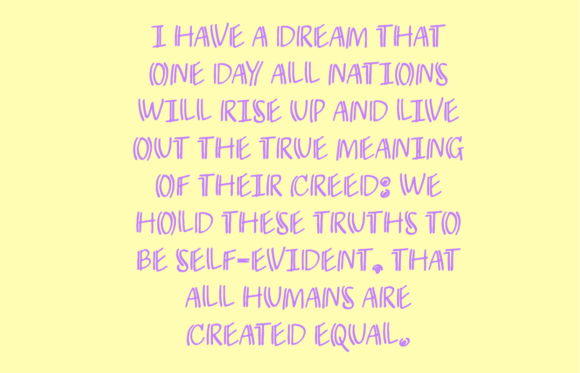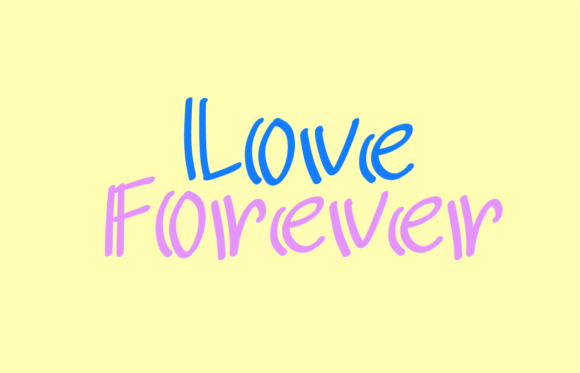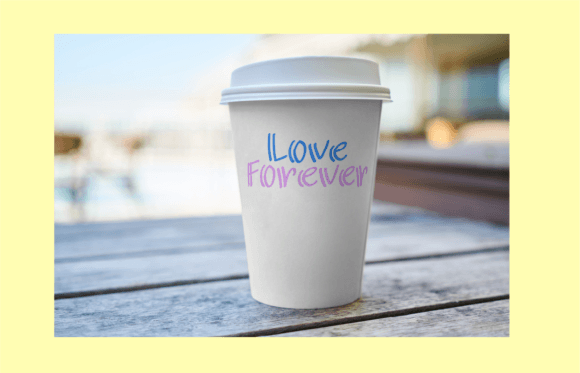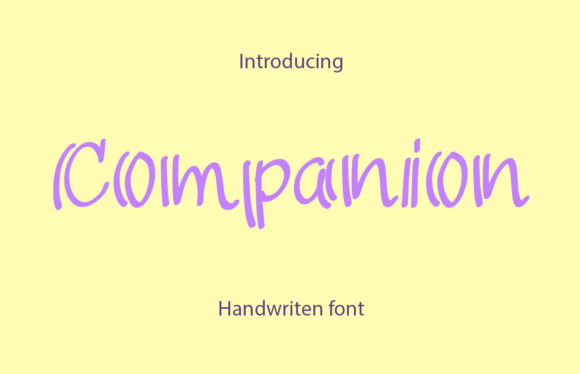
Introducing Companion Font: The Ultimate Handwritten Font for Your Creative Projects
Are you tired of using the same old fonts for your designs? Do you want to add a touch of elegance and sophistication to your projects? Look no further than Companion Font, a stunning handwritten font that’s sure to become your new favorite. With its perfect blend of classy calligraphic influences and modern freshness, Companion Font is the perfect choice for designers and crafters looking to take their work to the next level.
The Story Behind Companion Font
Companion Font is more than just a font – it’s a work of art. Masterfully designed to evoke a sense of luxury and refinement, this exquisite handwritten font is perfect for a wide range of creative projects, from wedding invitations and branding materials to social media graphics and digital art. With its flowing lines and delicate curves, Companion Font exudes a sense of sophistication and poise that’s sure to impress.
What Makes Companion Font So Special?
So, what sets Companion Font apart from other fonts on the market? Here are just a few of its standout features:
- Classy Calligraphic Influences: Companion Font boasts beautiful calligraphic influences that give it a sense of elegance and refinement.
- Contemporary and Fresh: Despite its classic influences, Companion Font feels modern and fresh, making it perfect for designers who want to create something new and exciting.
- Handwritten with Love: Companion Font is a true handwritten font, crafted with love and care to ensure that every letter and curve is perfect.
- Versatile: Companion Font is incredibly versatile, making it suitable for a wide range of creative projects, from digital art to print materials.
How to Use Companion Font in Your Projects
Companion Font is incredibly easy to use, even for designers who are new to working with handwritten fonts. Here are a few tips for incorporating Companion Font into your projects:
- Pair it with Other Fonts: Companion Font pairs beautifully with other fonts, making it easy to create stunning font combinations that add depth and interest to your designs.
- Use it for Headlines and Titles: Companion Font is perfect for headlines and titles, where its elegant lines and curves can really shine.
- Add it to Your Branding Materials: Companion Font is a great choice for branding materials, such as logos, business cards, and letterheads, where its sophisticated feel can help to elevate your brand.
Why Designers and Crafters Love Companion Font
Companion Font has quickly become a favorite among designers and crafters, and it’s easy to see why. Here are just a few reasons why this font is a must-have for any creative:
- Unique and Eye-Catching: Companion Font is a true standout, with its unique blend of calligraphic influences and modern freshness making it a great choice for designers who want to create something truly special.
- Easy to Read: Despite its elegant lines and curves, Companion Font is incredibly easy to read, making it perfect for body text and other applications where readability is key.
- Highly Versatile: Companion Font is incredibly versatile, making it suitable for a wide range of creative projects, from digital art to print materials.
| Font Name | Companion Font |
| Author | StairheadStore |
In conclusion, Companion Font is a truly exquisite handwritten font that’s sure to become a favorite among designers and crafters. With its perfect blend of classy calligraphic influences and modern freshness, Companion Font is the perfect choice for anyone looking to add a touch of elegance and sophistication to their creative projects. Whether you’re working on a wedding invitation, a branding campaign, or a digital art piece, Companion Font is the perfect choice. So why wait? Fall in love with Companion Font today and bring your projects to the highest levels!